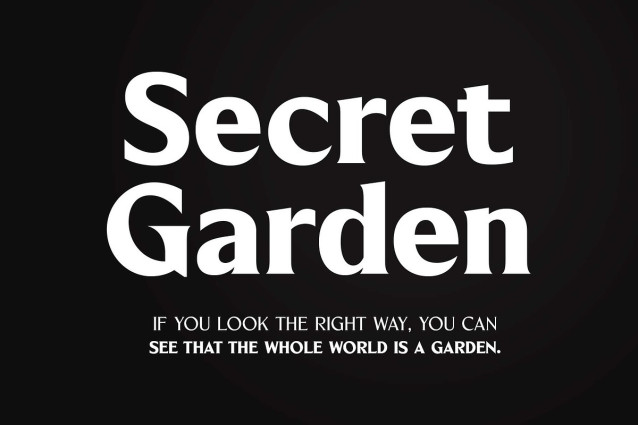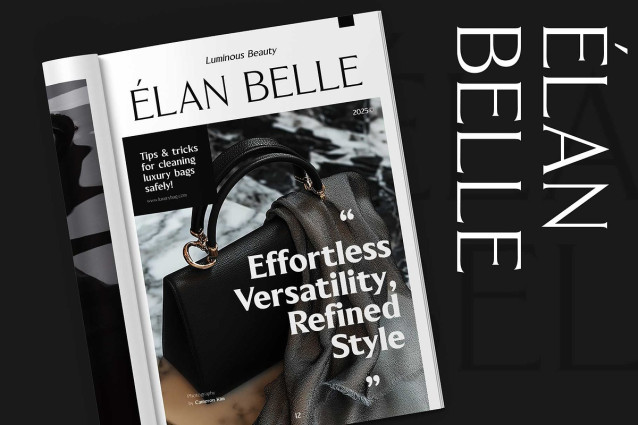
Blackney Bold Font
Blackney Bold Font is a strong serif font with medium contrast, inspired by gothic style and modern-classic fashion. It is carefully designed with medium ascenders to give a solid appearance, while its sharp serifs make the letters look bold and confident.
Blackney is a display typeface, perfect for headlines, subheadings, and short body text in magazines, books, fashion editorials, quotes, hipster t-shirts, signboards, logos, and more. It comes in 5 weights from Light to Bold, each with a matching slant style — a great choice for creating a bold and daring visual concept!